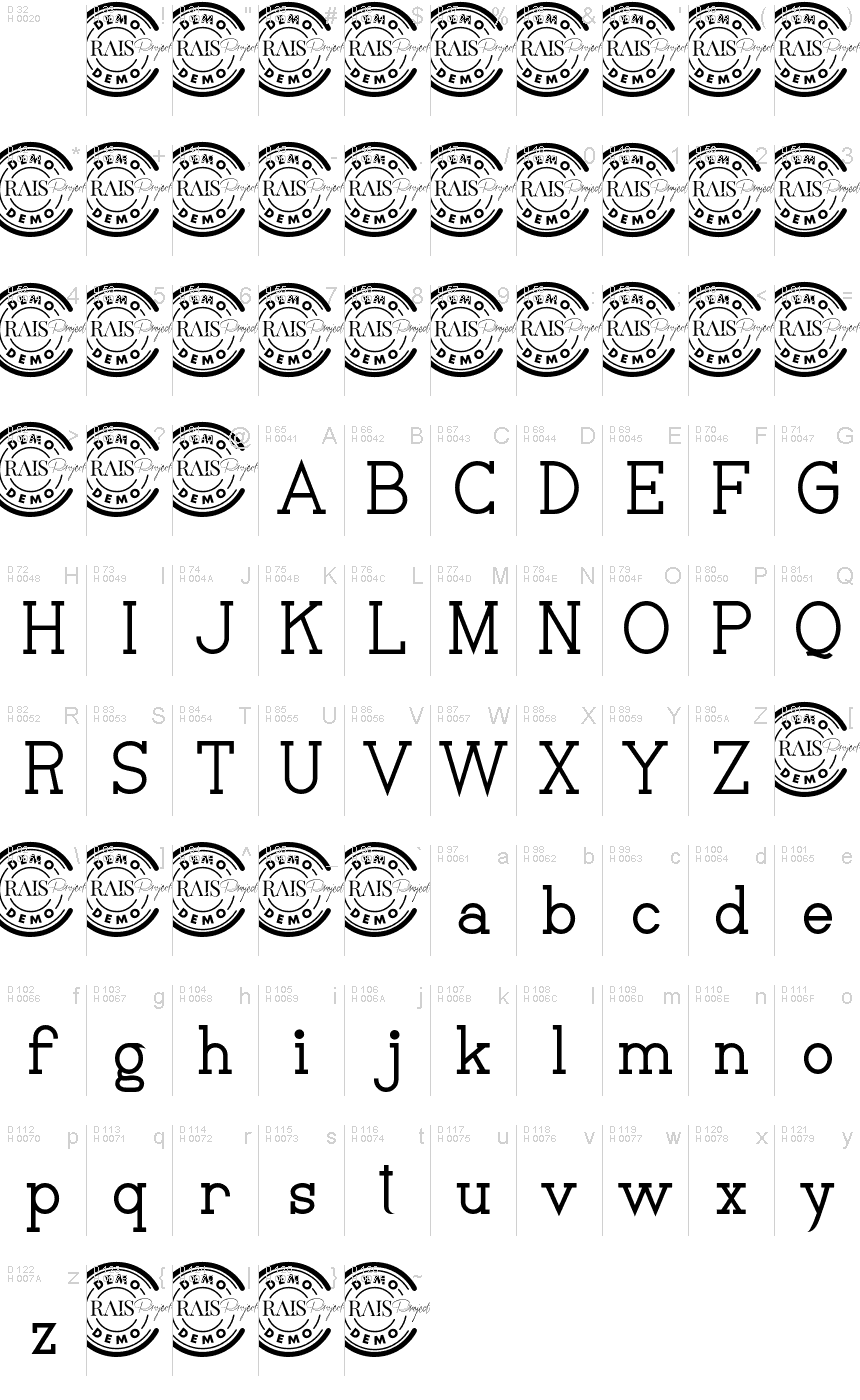
Victorela Bold is a stylish font designed by Widiyanti & Suci Anita. It belongs to the Victorela font family and has a classic serif style with a light touch. This versatile font can be used to create beautiful typographic designs for both digital and print projects. From invitations, posters to logos, Victorela Bold is perfect for adding timeless elegance.